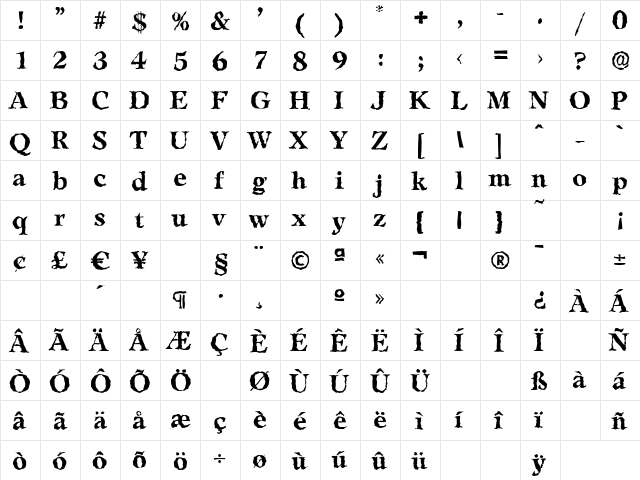
LeamingtonRandom Bold
Design Context for LeamingtonRandom Typeface
LeamingtonRandom is a composed and adaptable typeface that performs quietly and consistently across a wide range of design contexts. Its bold stroke weight gives it real presence on the page.